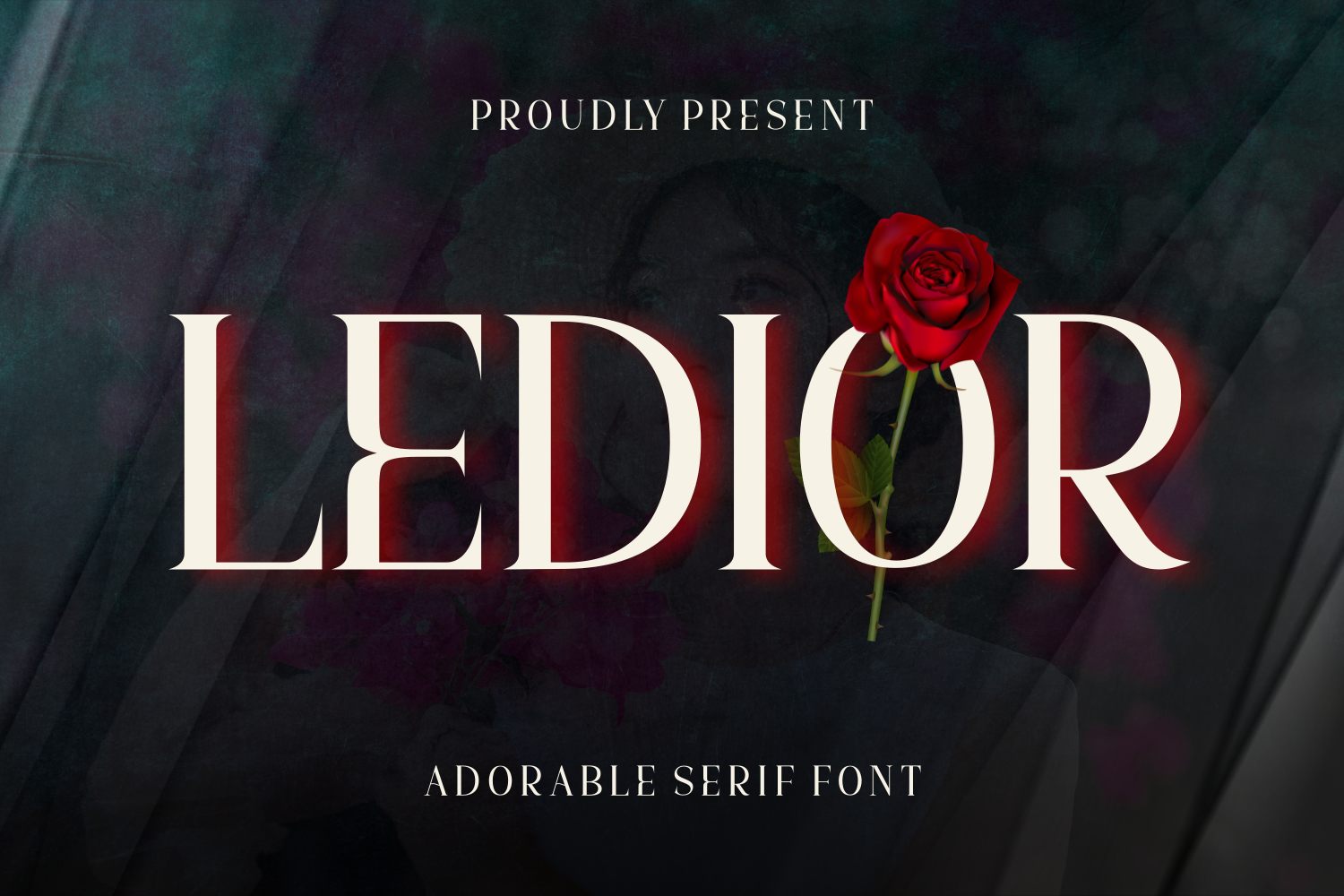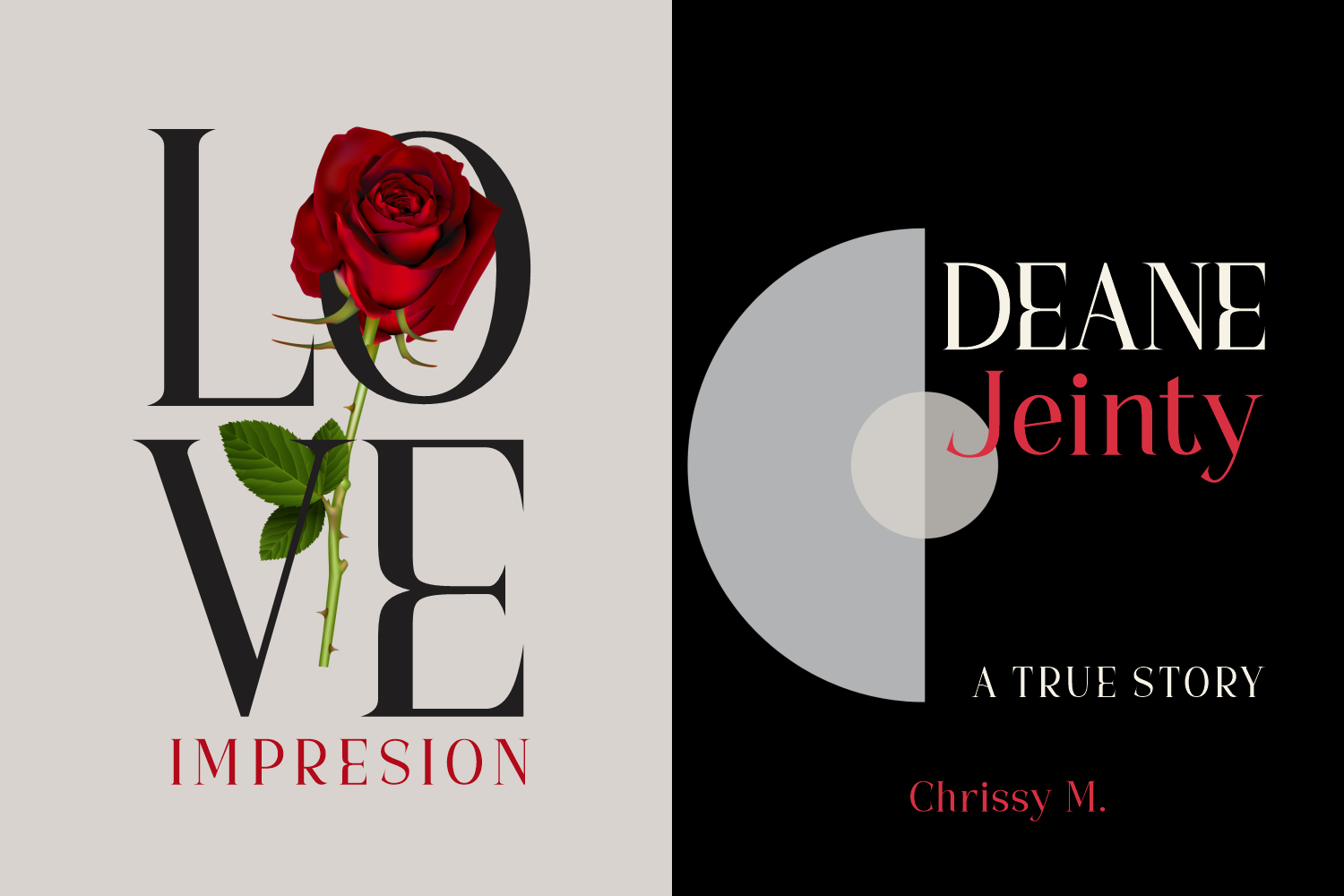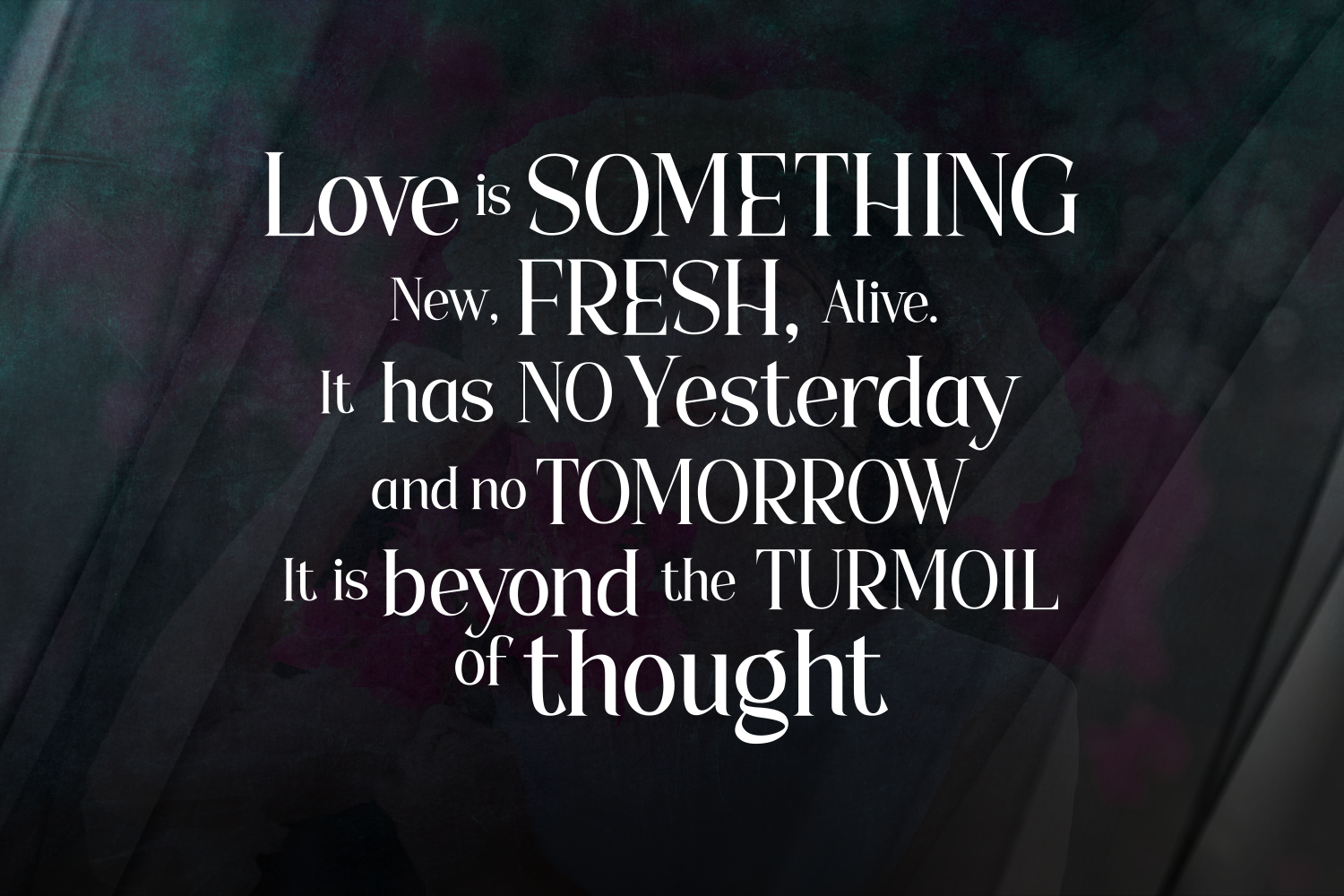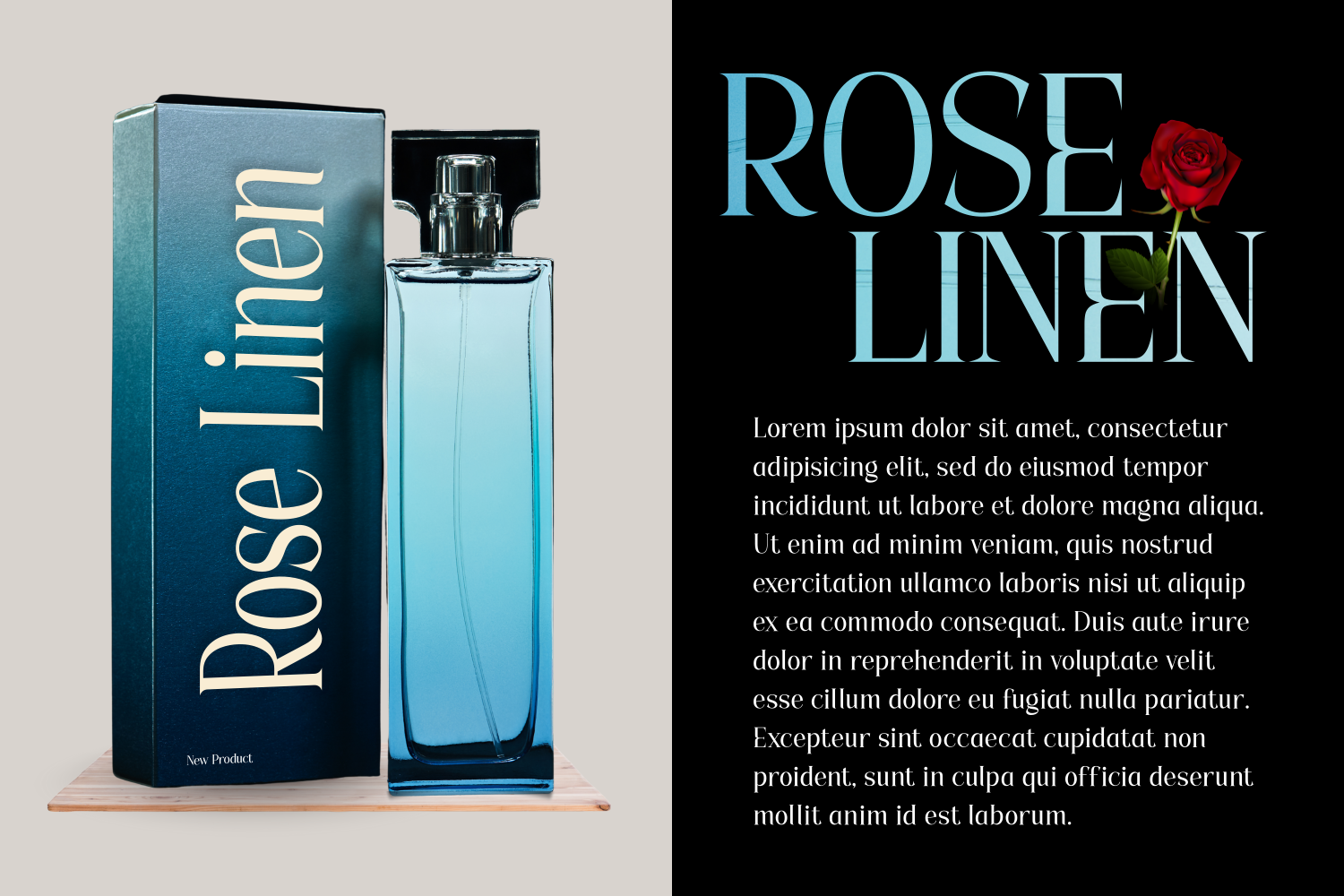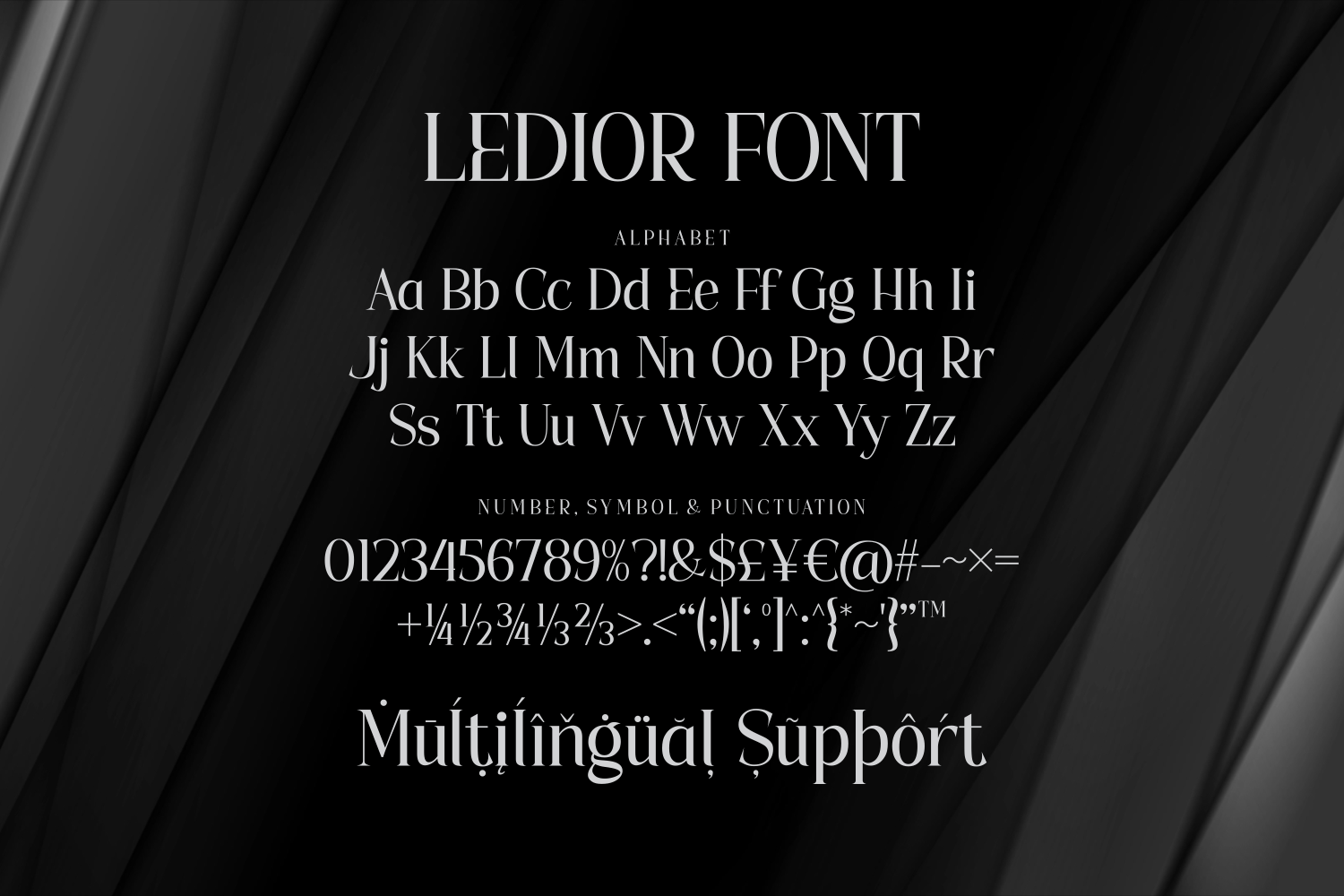
Ledior is an adorable serif font with a romantic flair. Delicate curves, refined serifs, and soft contrast make it perfect for beauty branding, perfume packaging, and modern love stories. It feels intimate, poetic, and premium.
A romantic serif with soft allure.